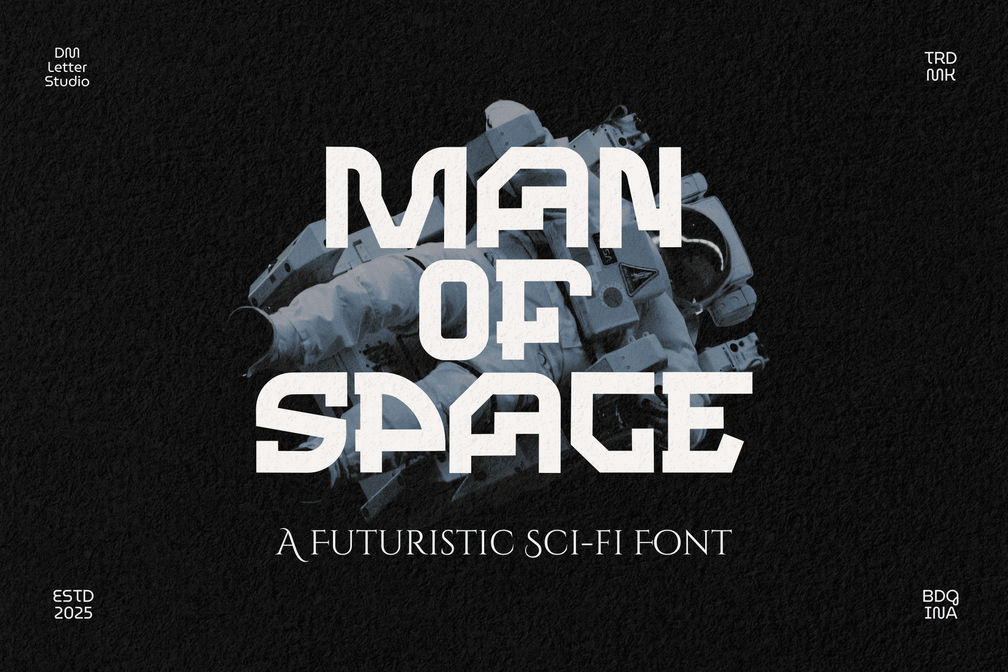
Man of Space
Man of Space – Futuristic Sci-Fi Font
Man of Space is a cutting-edge futuristic font designed for sci-fi, tech, and space-themed projects. With sleek lines and a modern aesthetic, this typeface embodies innovation and advanced technology. Perfect for gaming, movie titles, space exploration posters, futuristic branding, and digital interfaces, Man of Space brings a bold and high-tech feel to any design.
✔ Futuristic & Sci-Fi Inspired Design – Sharp, geometric letterforms with a modern edge.
✔ Perfect for High-Tech & Sci-Fi Projects – Ideal for game logos, space-themed designs, tech branding, and cyberpunk aesthetics.
✔ Bold & Eye-Catching Display Font – Great for headlines, posters, and futuristic typography.
✔ Complete Character Set – Includes uppercase, lowercase, numbers, punctuation, and multilingual support.